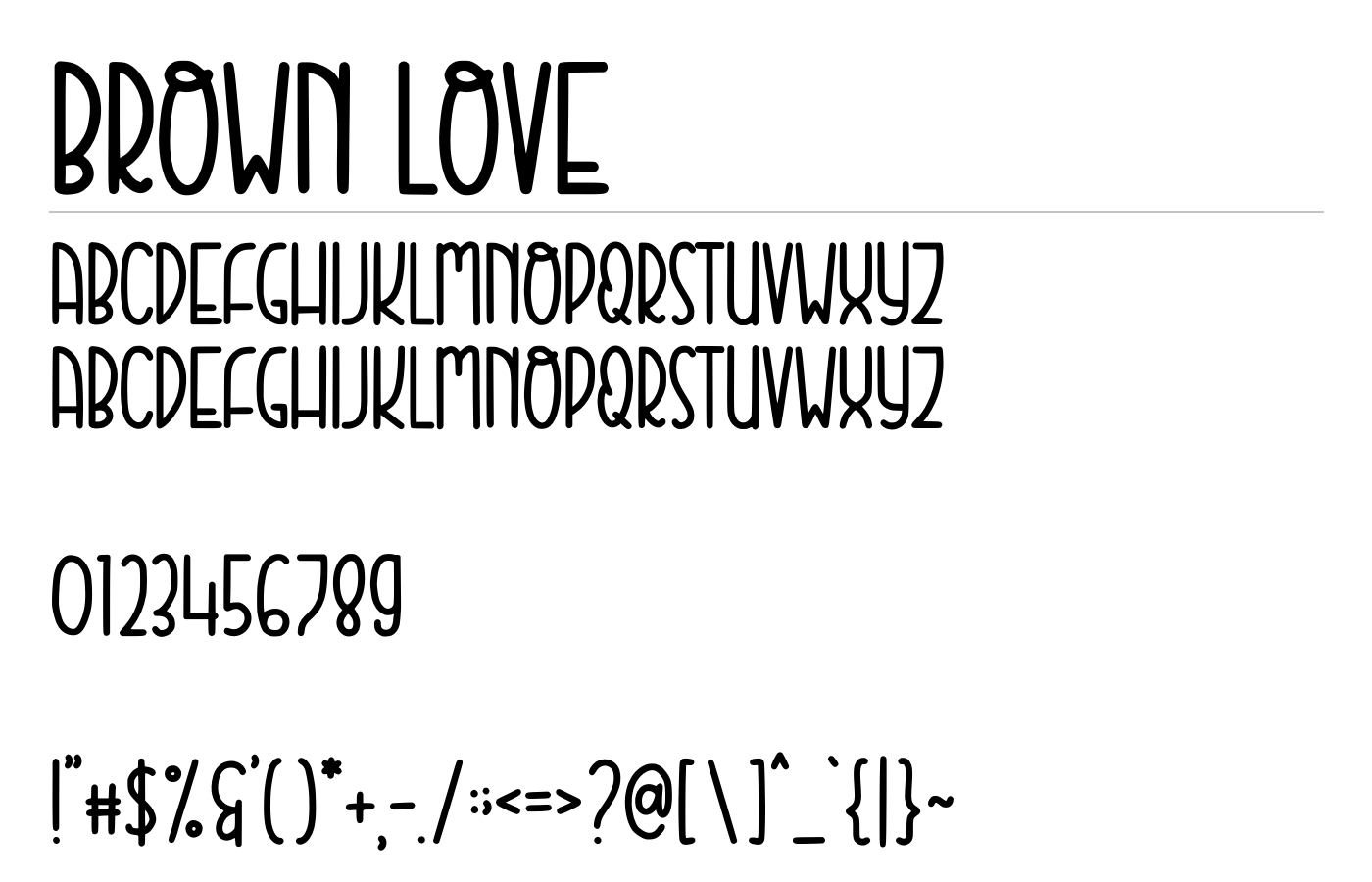
Brown Love is a playful and slender sans serif font with a tall x-height and rounded edges, giving it a friendly and casual vibe. Its slightly irregular letterforms and open spacing make it perfect for whimsical headlines, invitations, or branding that seeks a charming, approachable feel. This font works well in creative, lighthearted designs where a touch of personality is desired without sacrificing readability.
Brown Love Font
About Brown Love Font